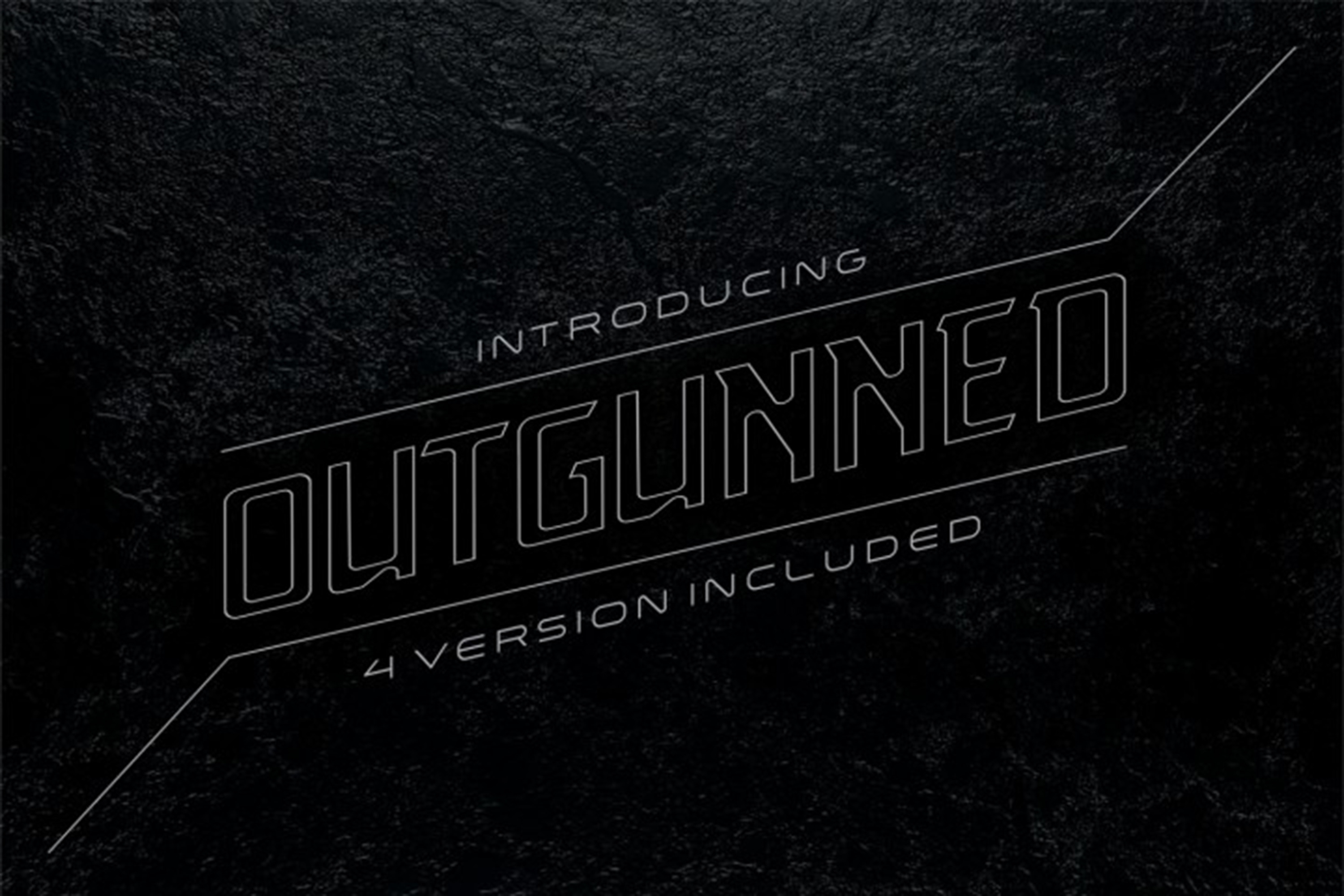
Outgunned display font in 4 versions
Outgunned
Outgunned is when you have better weaponry than any other designer as you have this font in your hands. This is for believers in themselves designers with skills as professional and with all required hands on tools available. Creativity is endless with this font. Try it yourself and you will be surprised. This multipurpose font is smoothly outlined by symbol contour. Available in different variations this font could satisfy any customer’s needs. Please share this beautiful and attractive font with your designer co-workers and friends.